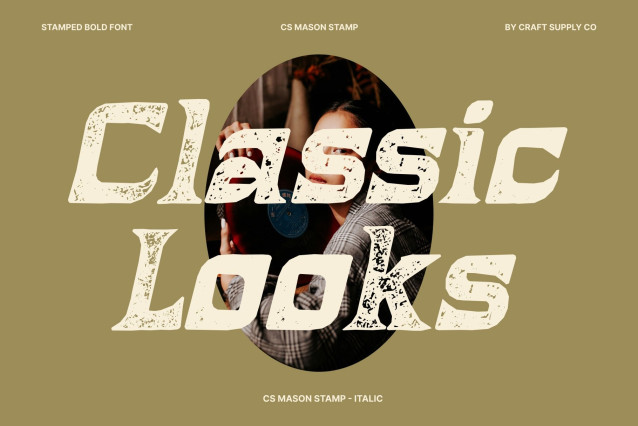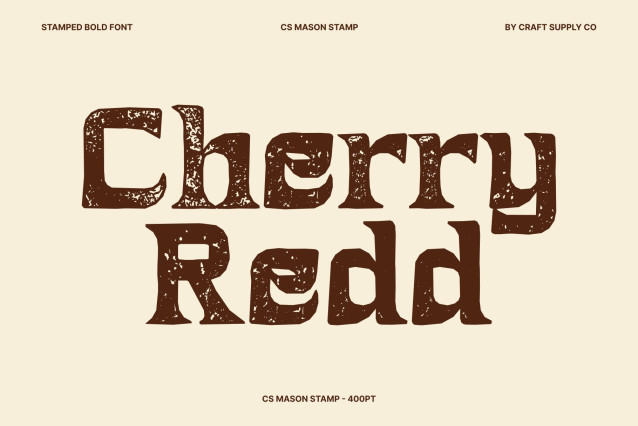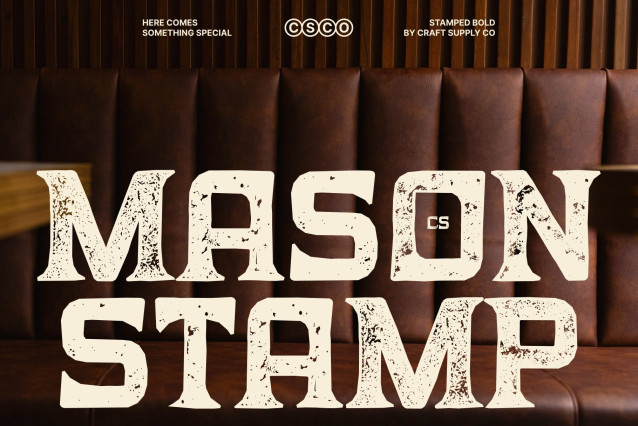
CS Mason Stamp – Display Serif Font: Where Uncial Tradition Meets Modern Elegance
Classic Uncial Forms with Contemporary Clarity
This is a modern display serif font that artfully blends classic uncial forms with clean, contemporary design. Its letterforms echo historical elegance while maintaining a refined modern structure, creating a harmonious balance between tradition and innovation. This fusion results in a typeface that feels timeless yet fresh, offering a distinctive voice for sophisticated design.
Bold Stamp Texture with Artistic Expression
This font introduces a handcrafted texture that brings depth and individuality to every character. The slightly distressed finish gives each letter a unique, expressive quality, as if it has been manually pressed onto the surface. This artistic detail adds warmth and authenticity, elevating the overall visual experience.